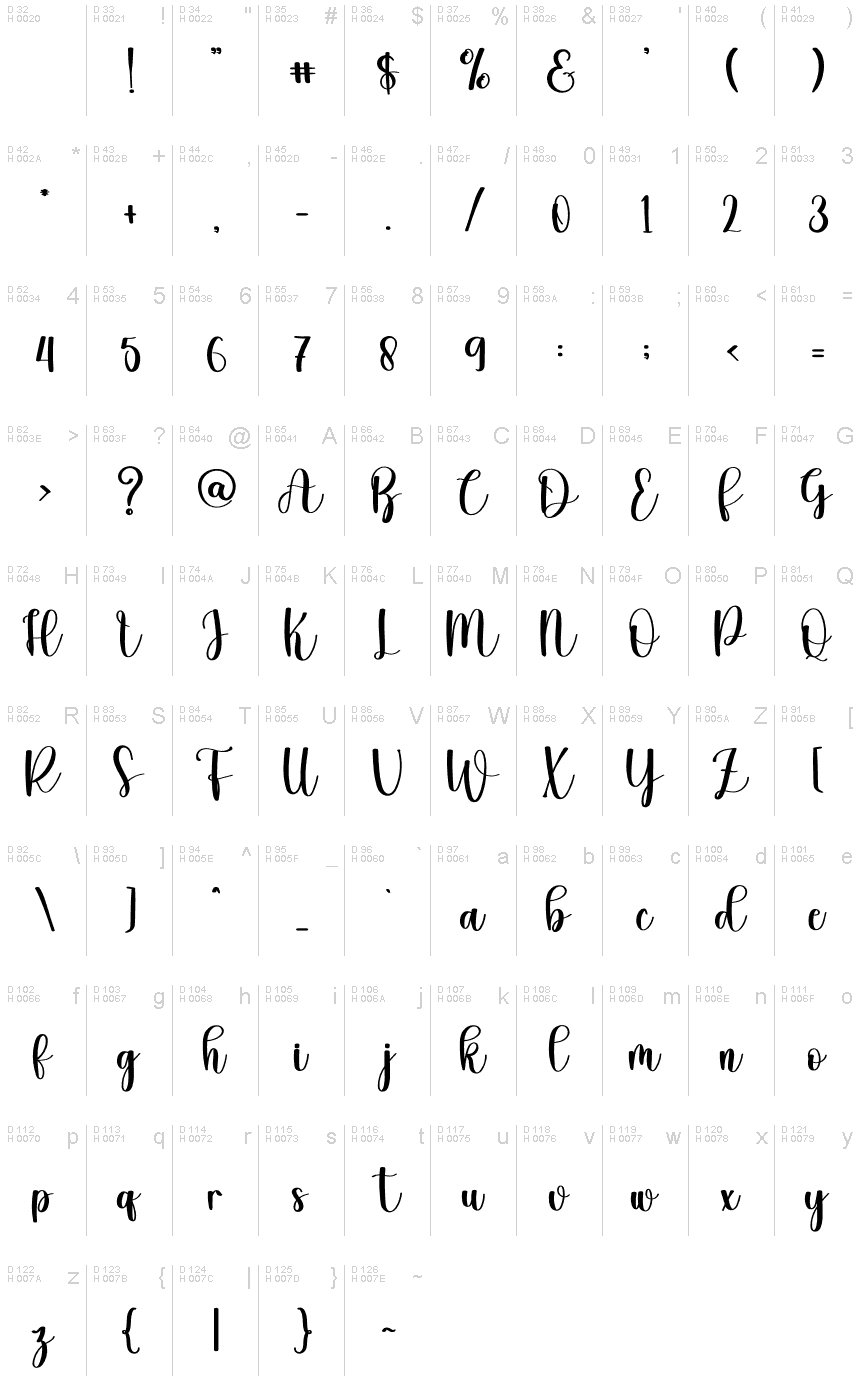
Golden
Golden is a beautiful calligraphy font crafted by FreshtypeINK. With its light weight and delicate curves, it's perfect for adding an elegant touch to any project - from wedding invites to logo designs.